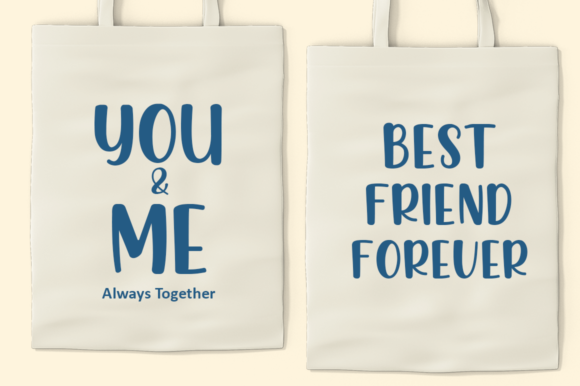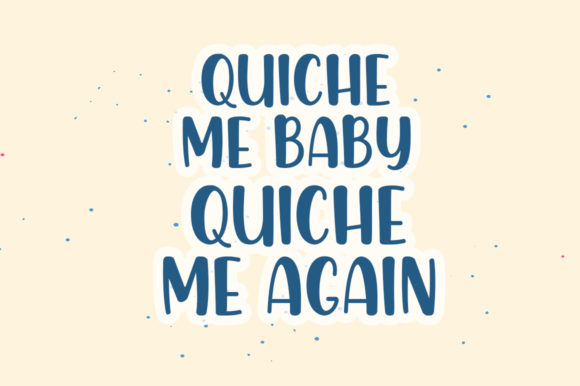
Chicken Quiche Font
db-ku.com - Script & Handwritten -- Chicken Quiche is a sweet and friendly handwritten font. Its natural and unique style makes it incredibly fitting to a large pool of designs. The only limit is your imagination!